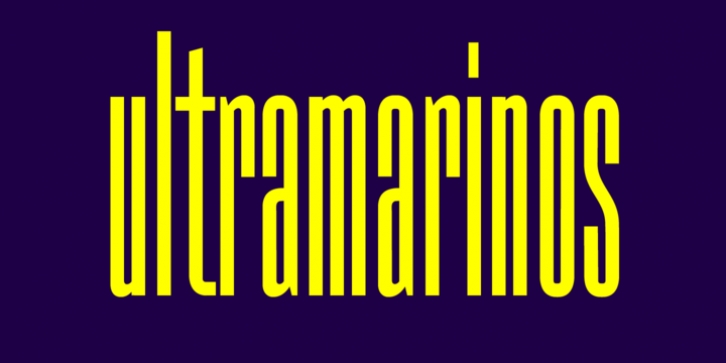
Dinosaur was designed by Daniel Uzquiano and published by Daniel Uzquiano. Dinosaur contains 6 styles and family package options.
Dinosaur is a very grotesk and extremely condensed display font. Only useful for very big and short texts. The font comes with three regular weights and three italic weights. With 448 glyphs, Dinosaur font supports over 200 Latin-based languages.
Dinosaur Light·
Dinosaur Light Italic·
Dinosaur Regular·
Dinosaur Regular Italic·
Dinosaur Bold·